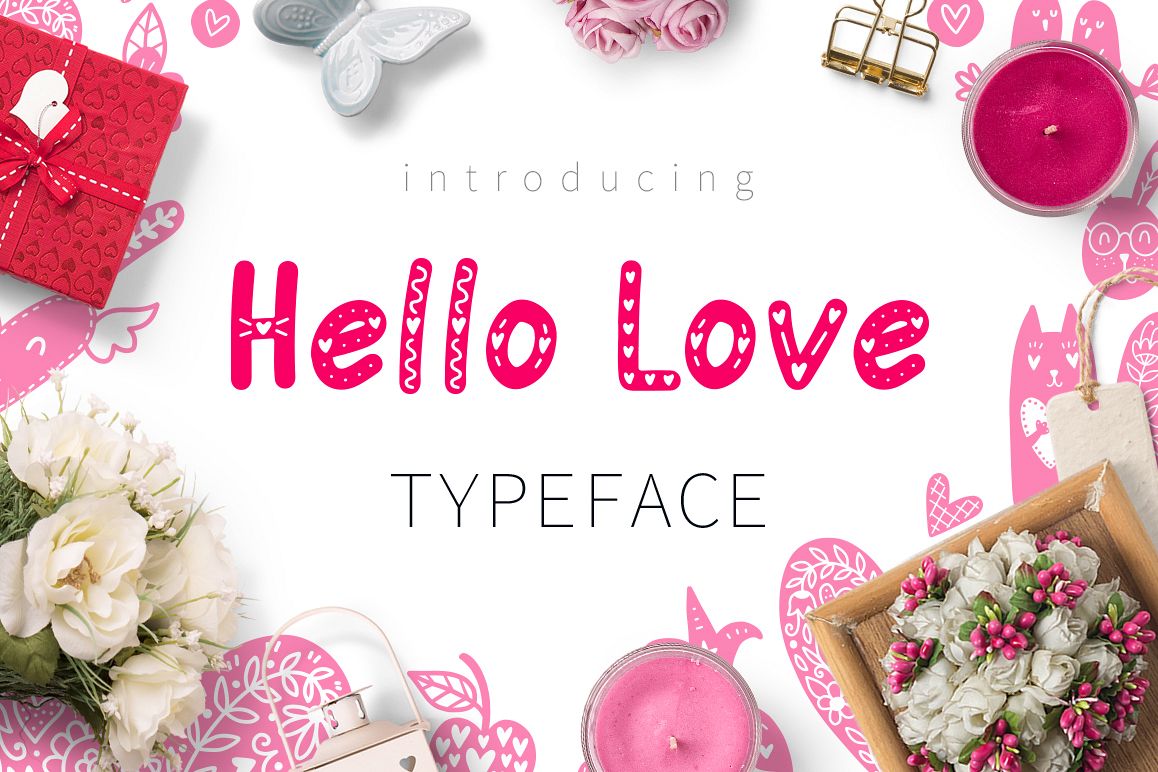
Hello Love - Valentine's Day Font
? Hello Love - Valentine's Day Typeface! Font for your romantic projects! ?
This script is perfect for cards, prints, logos, invitations, arrange illustration and decoration. Good for children and header. It has upper and lower case letters, numbers, special characters, accents.